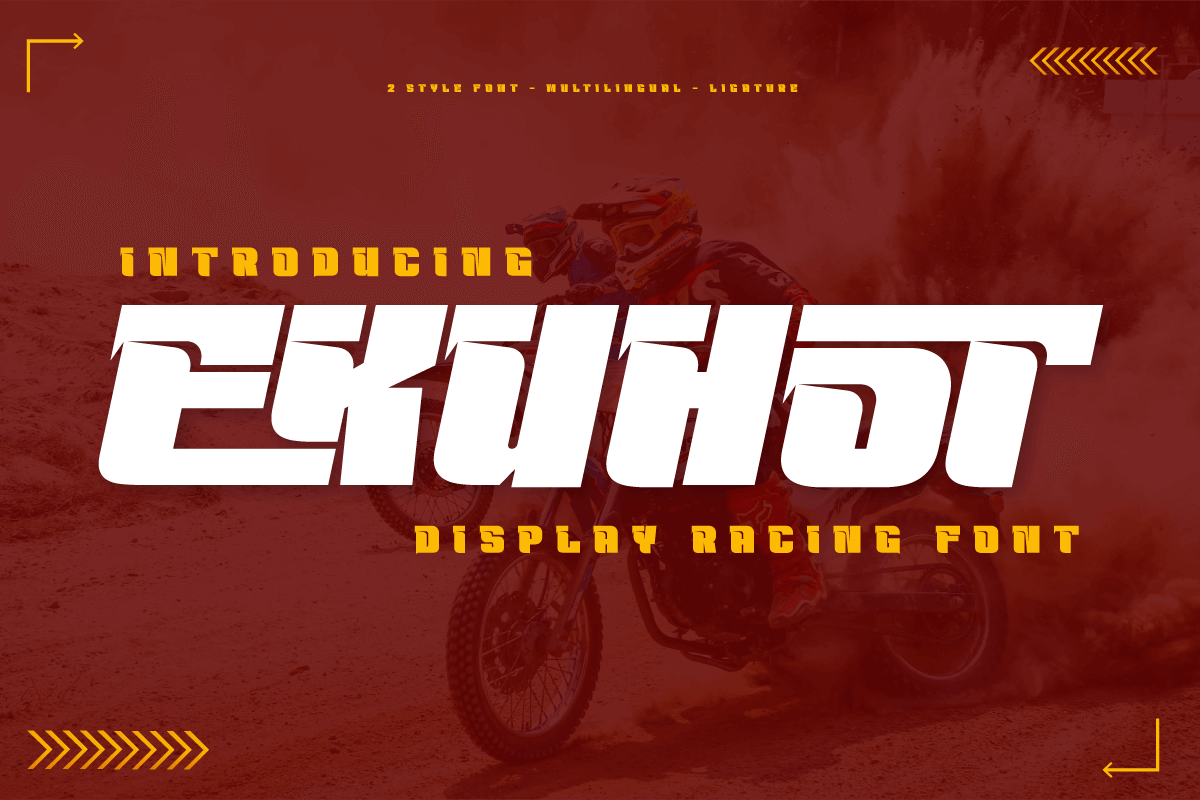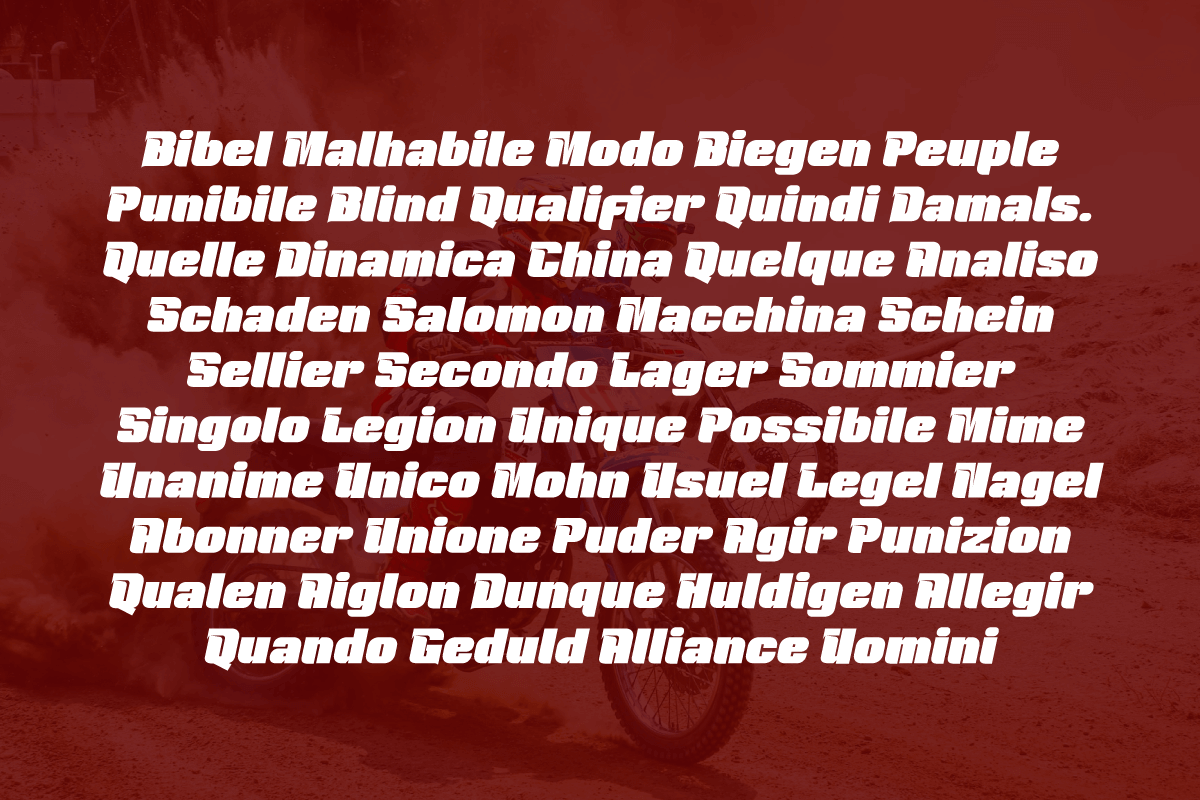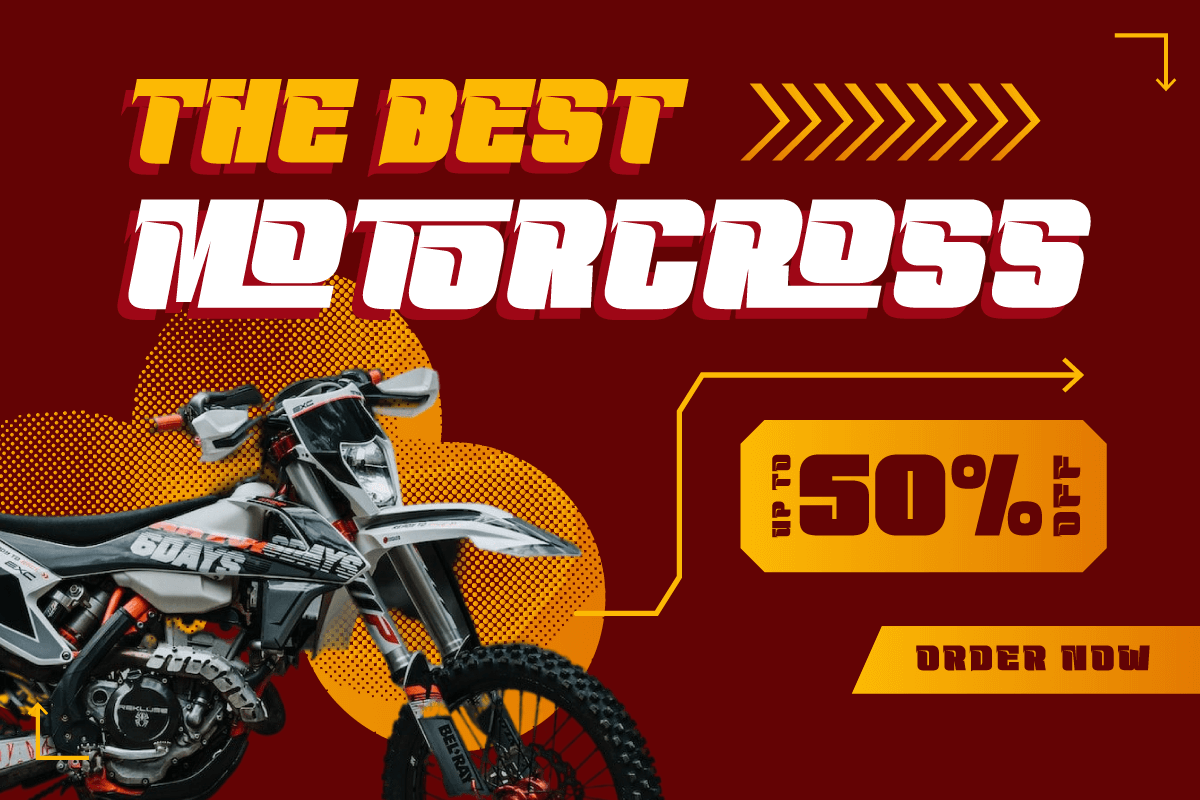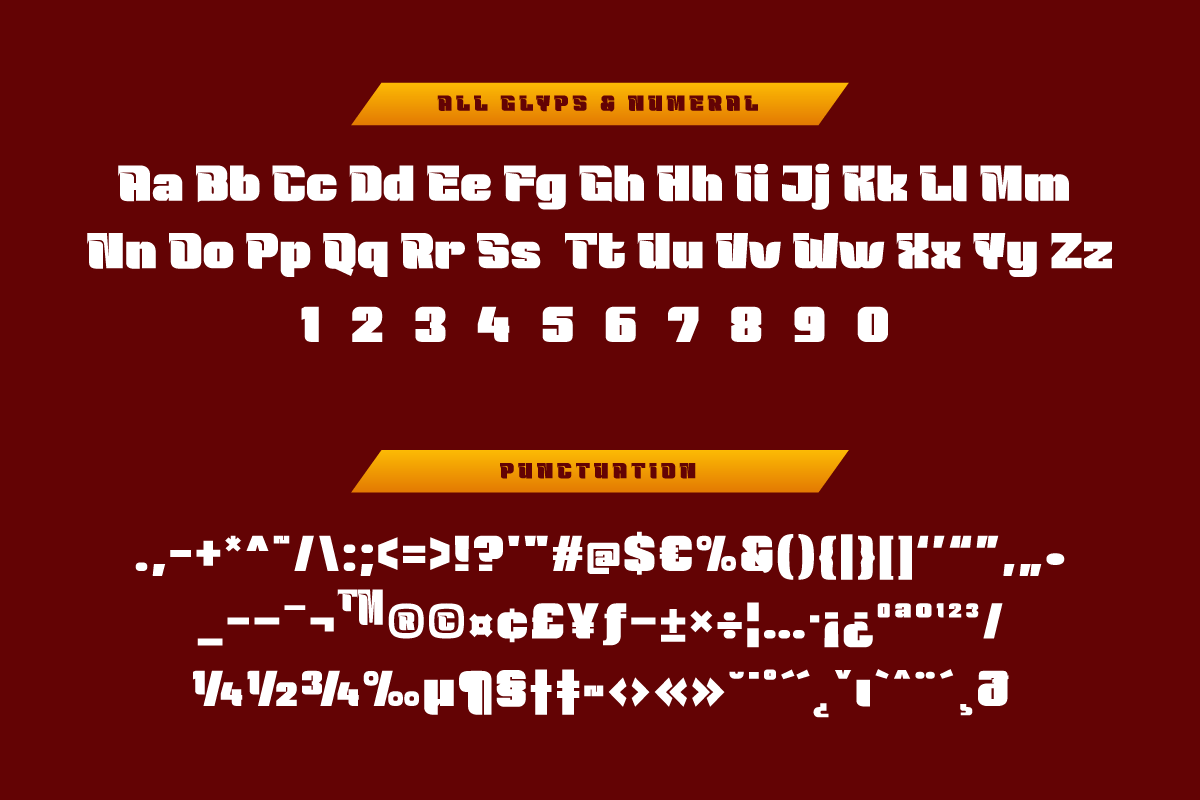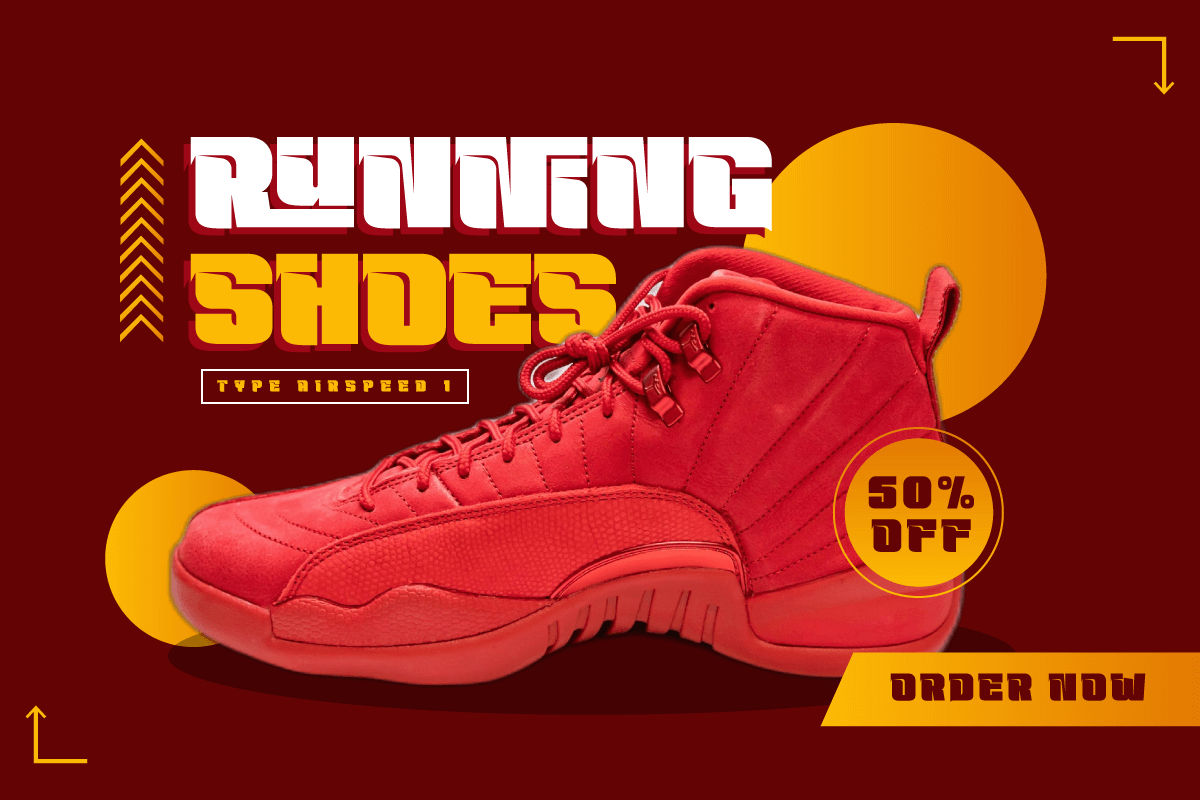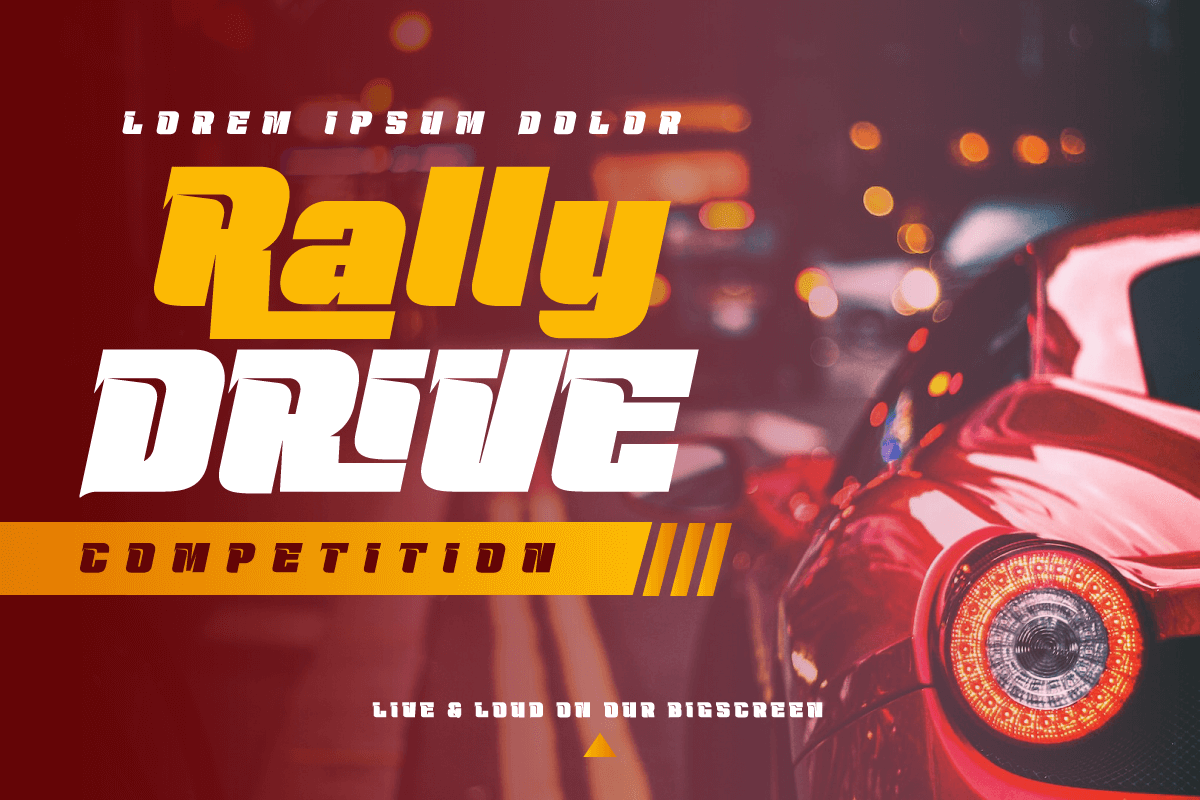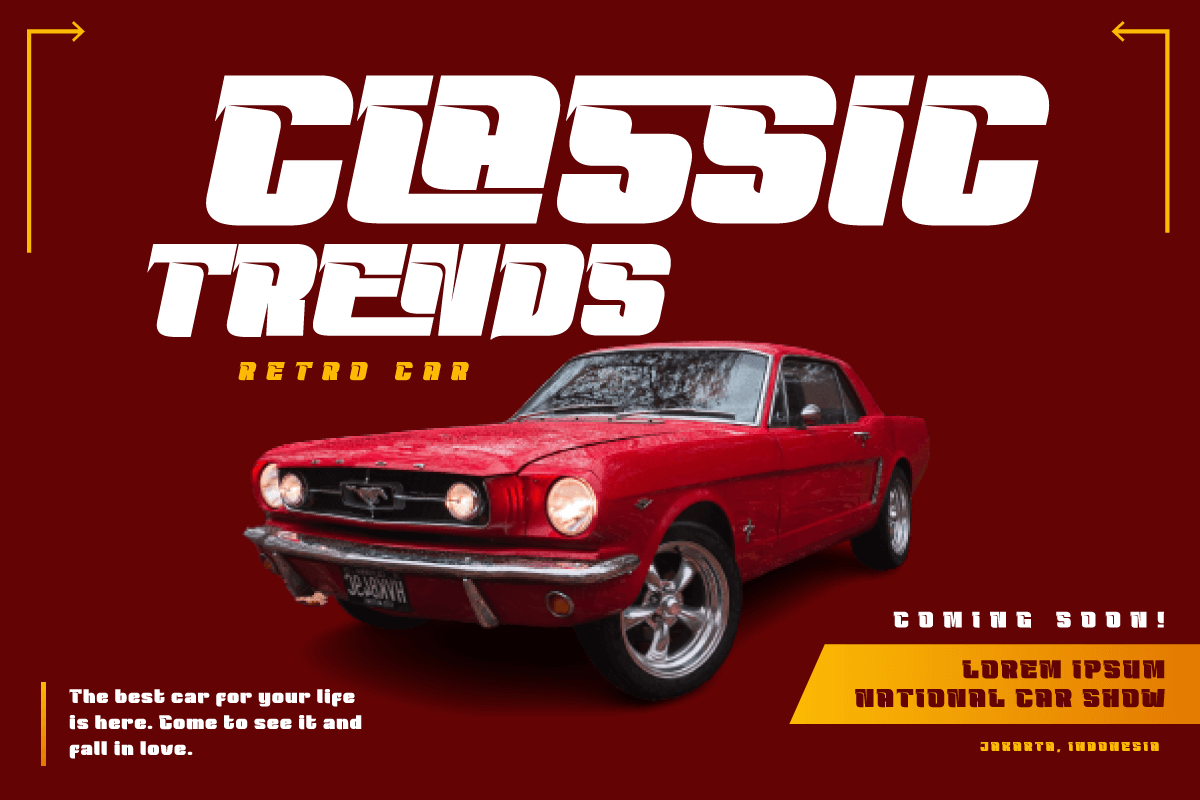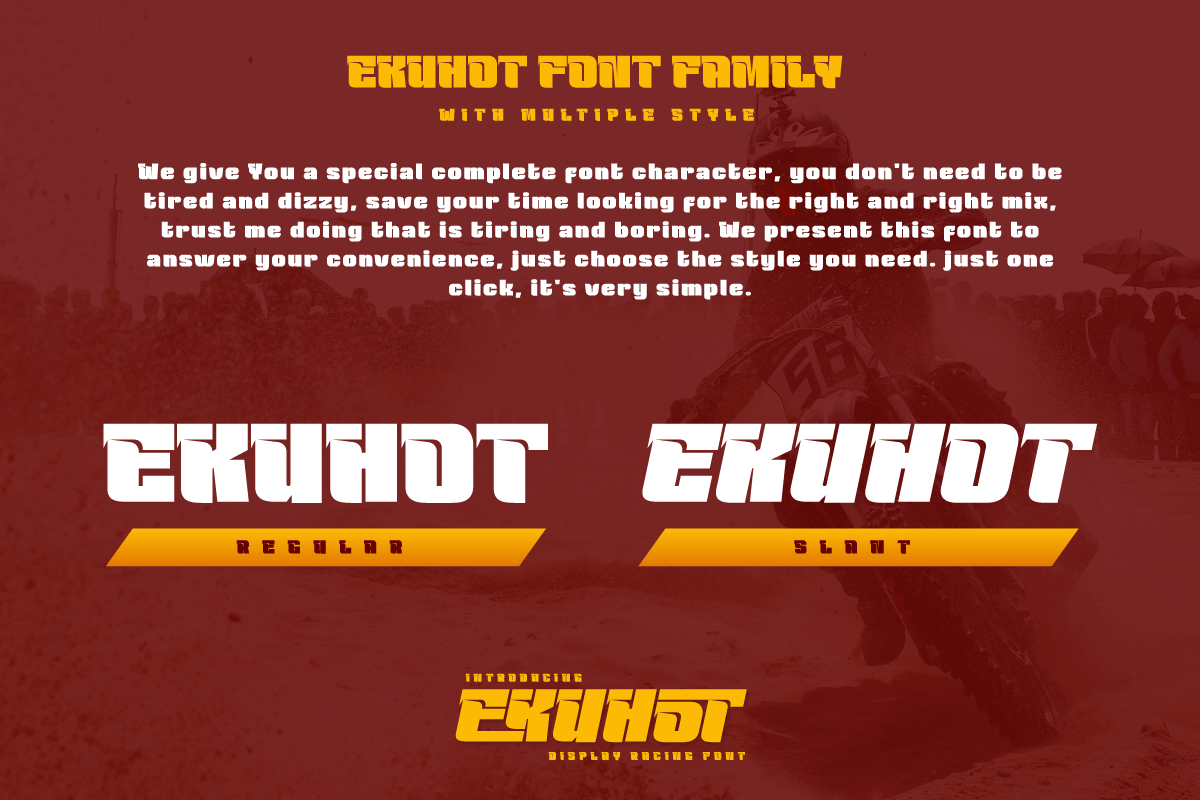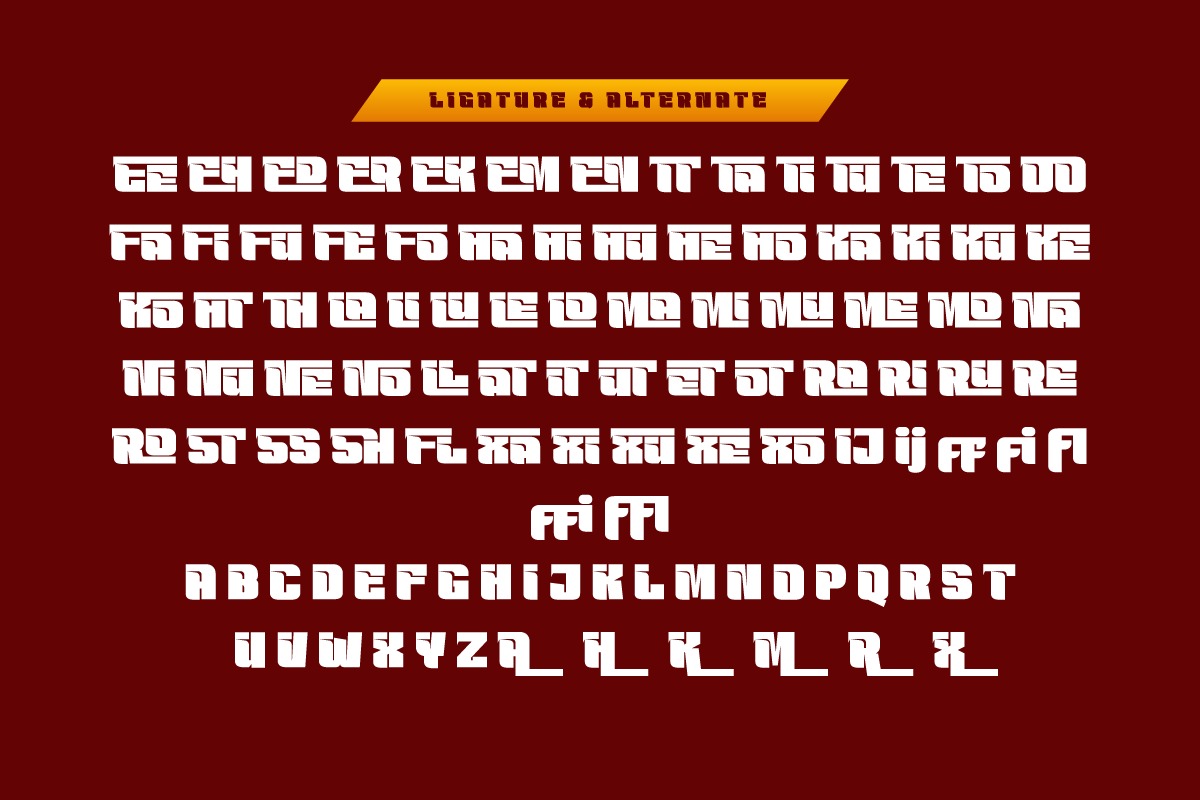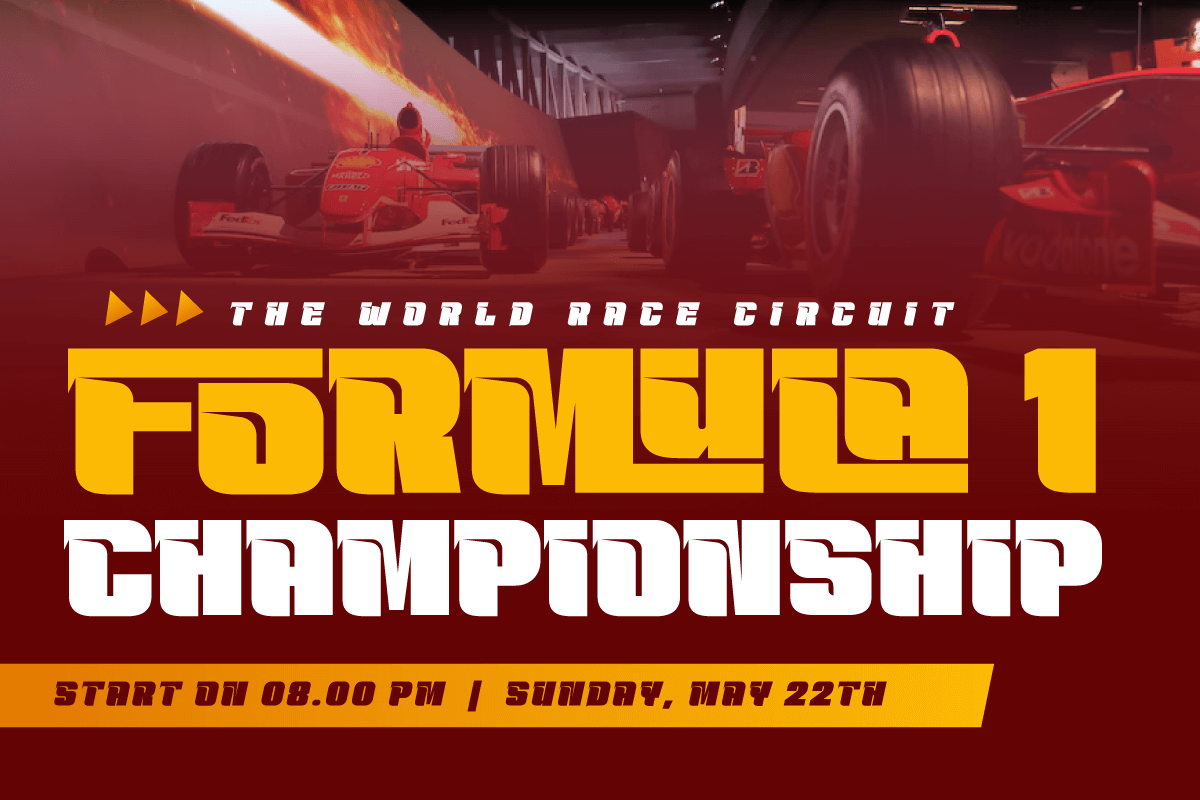
EKUHOT – Sport Racing Font
EKUHOT Racing Font is a font that is designed with a precise shape and has many alternate variations and various ligature styles that make every word beautiful when written, make this font for various titles and text in your special projects so that your project looks beautiful. dignified character, bold and sporty. This font is perfect for headlines as well as others, what are you waiting for, use this font now.